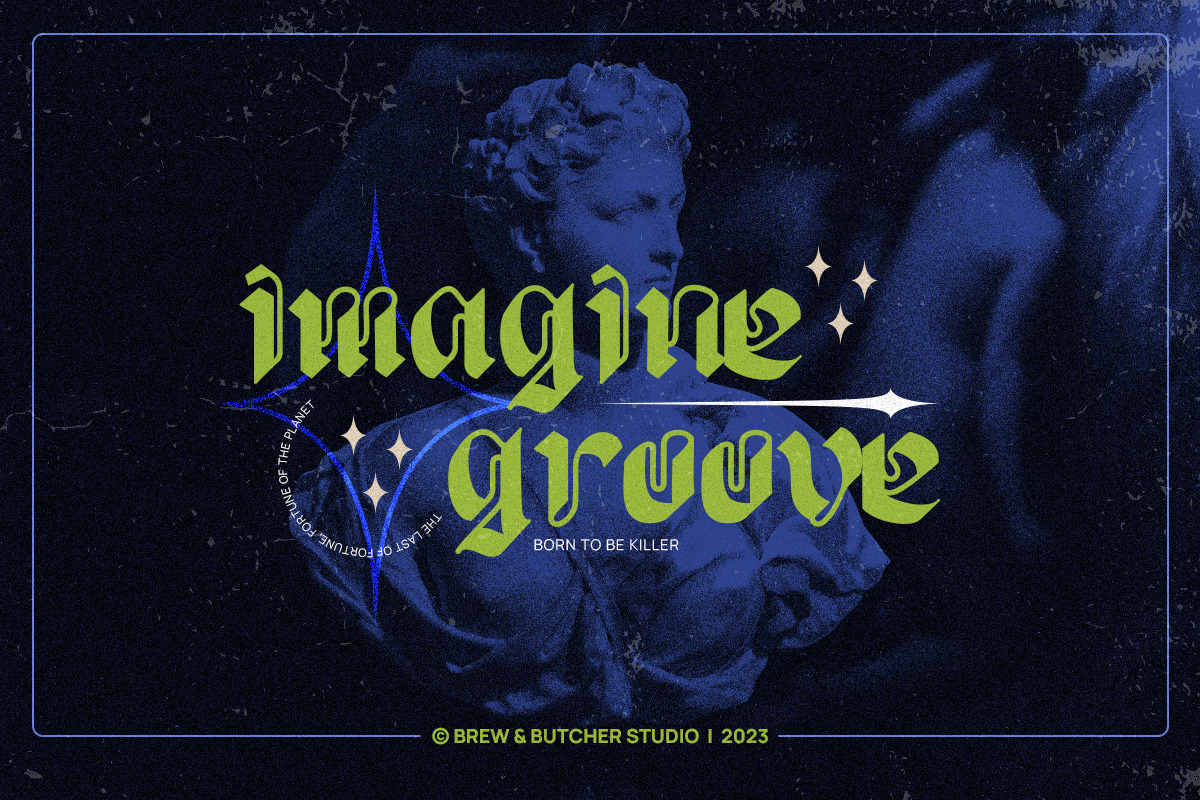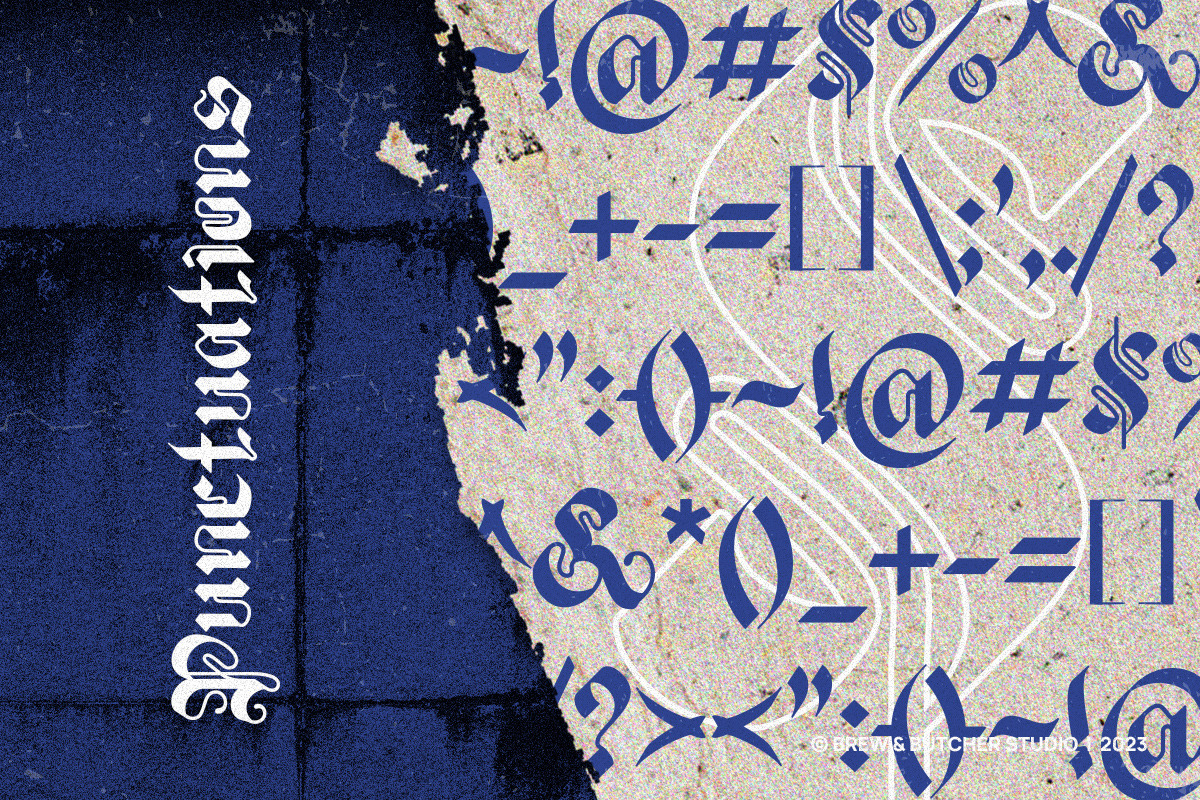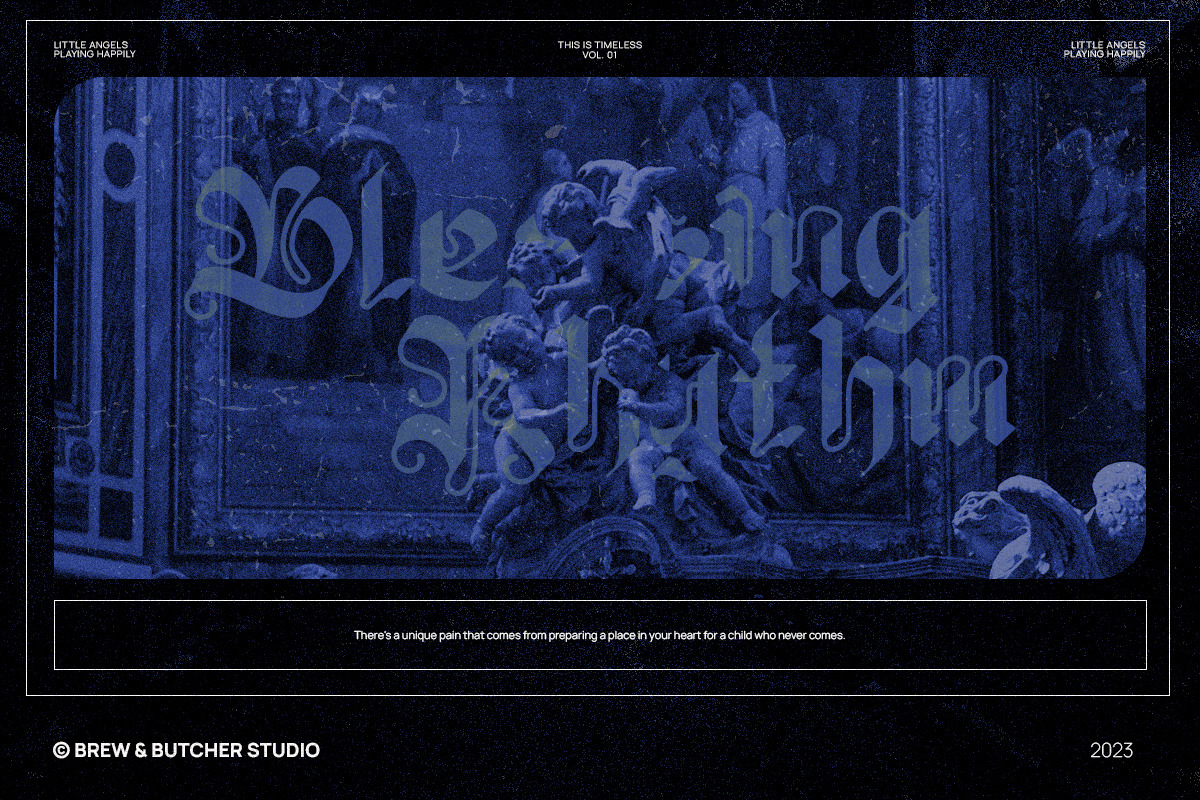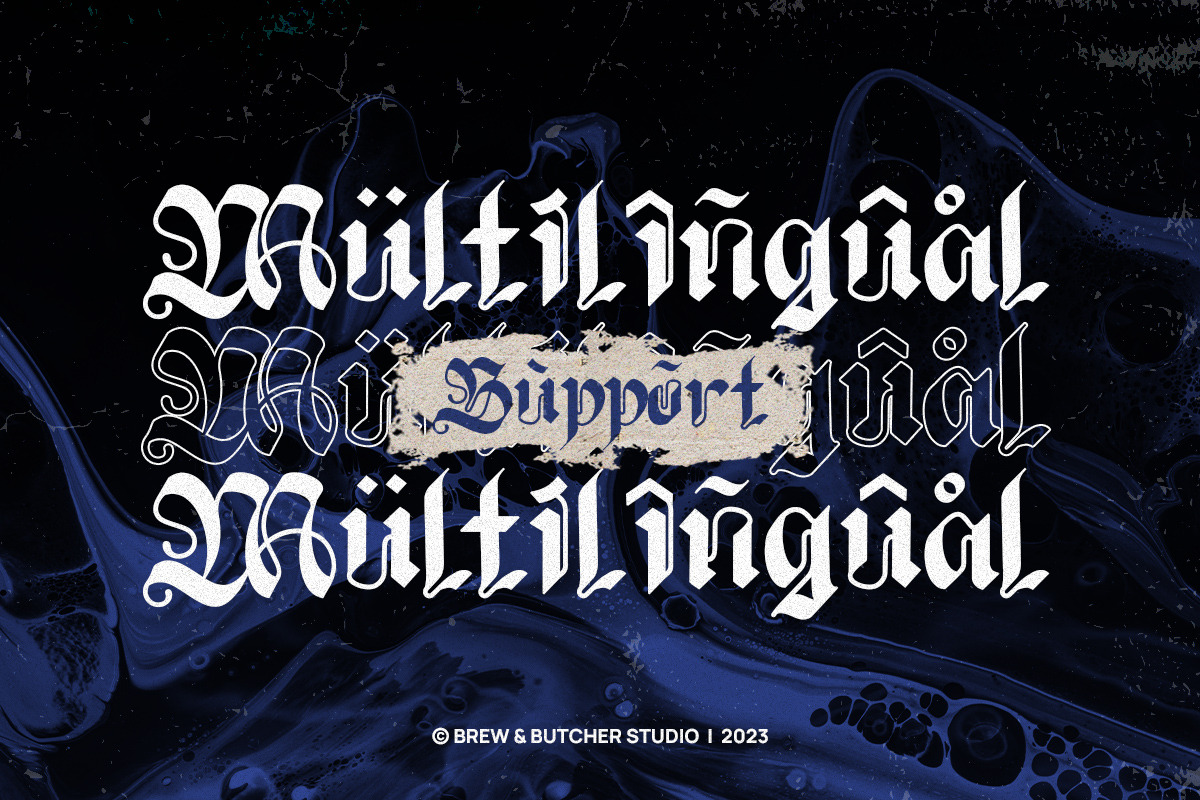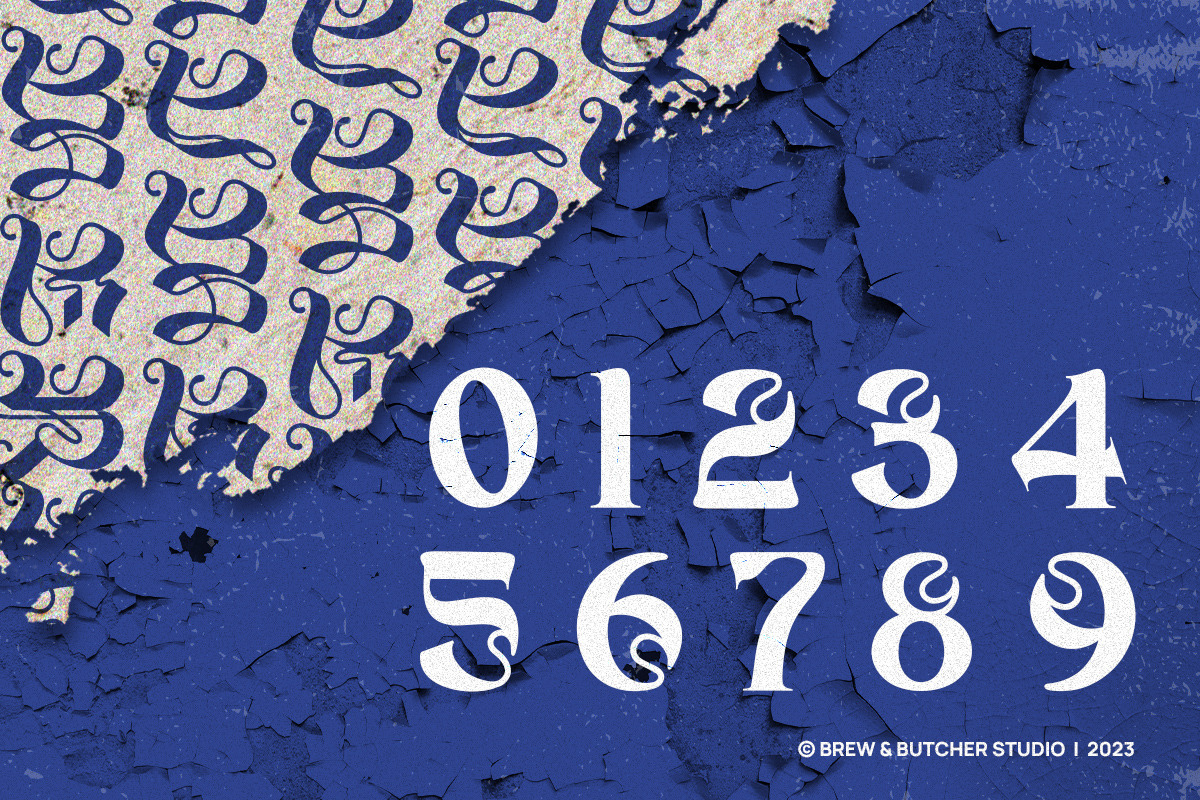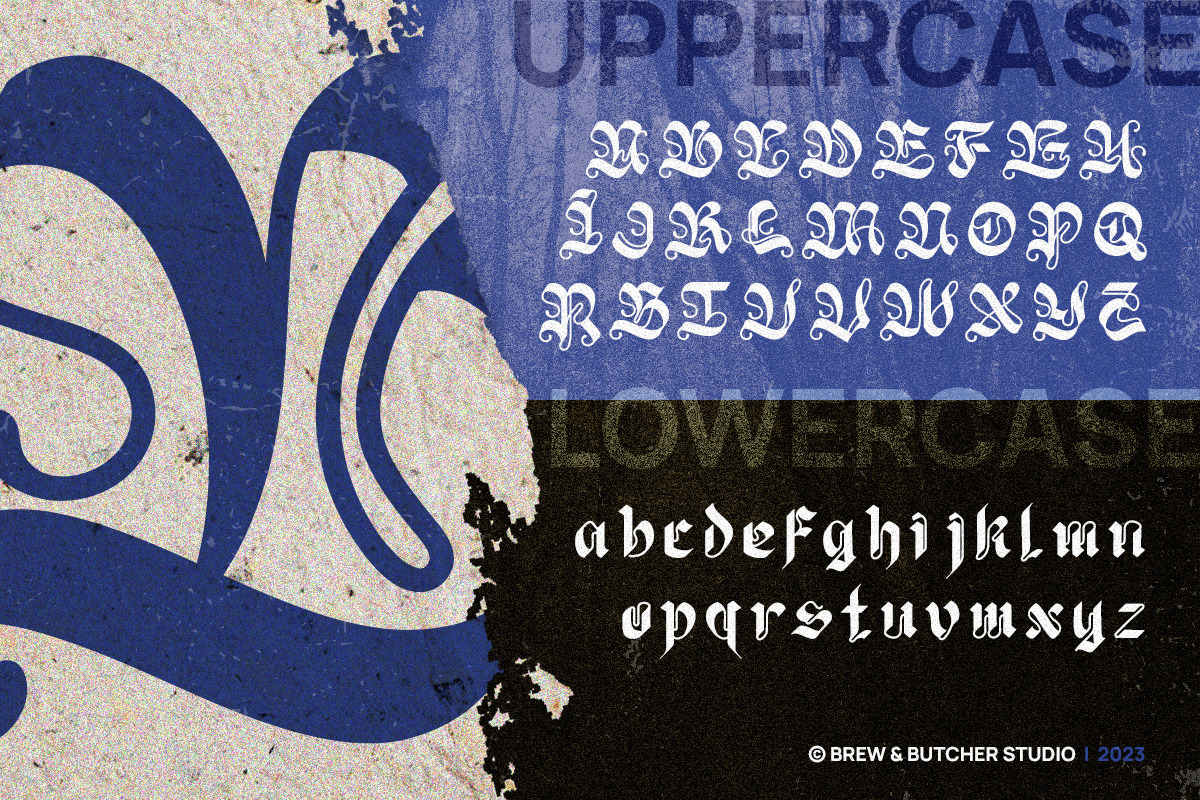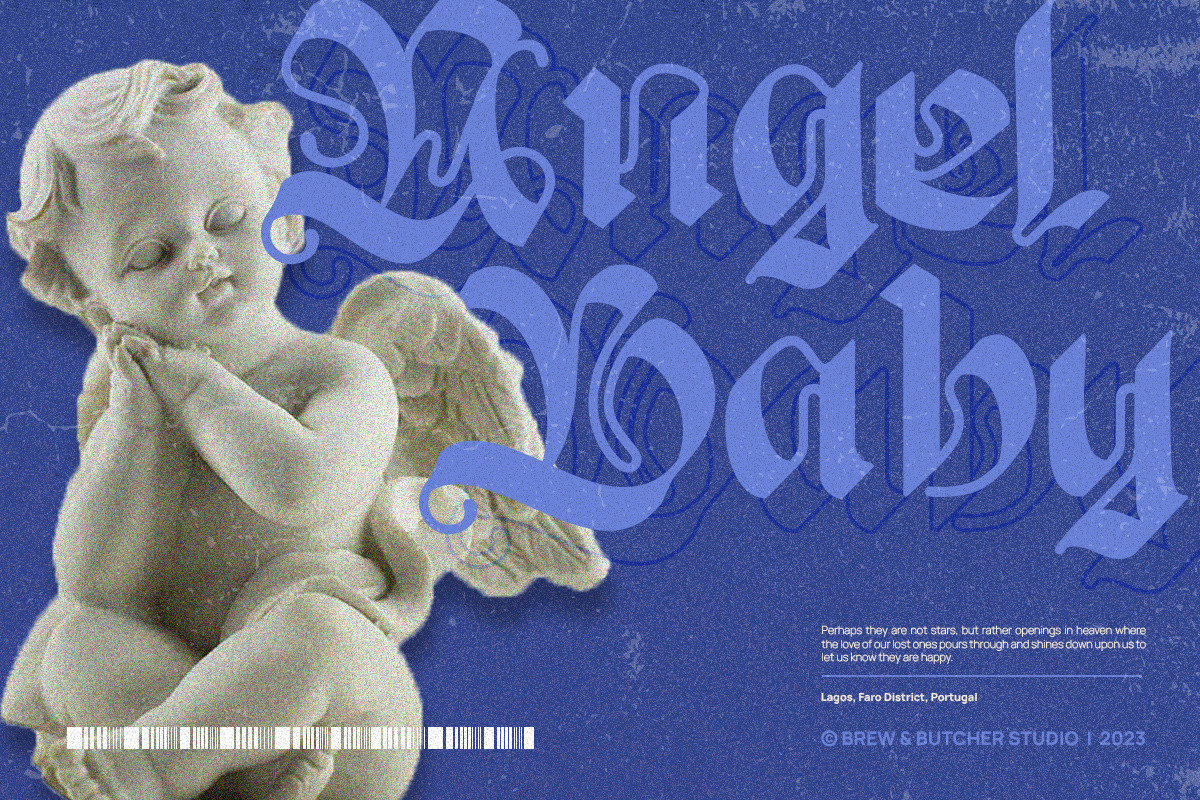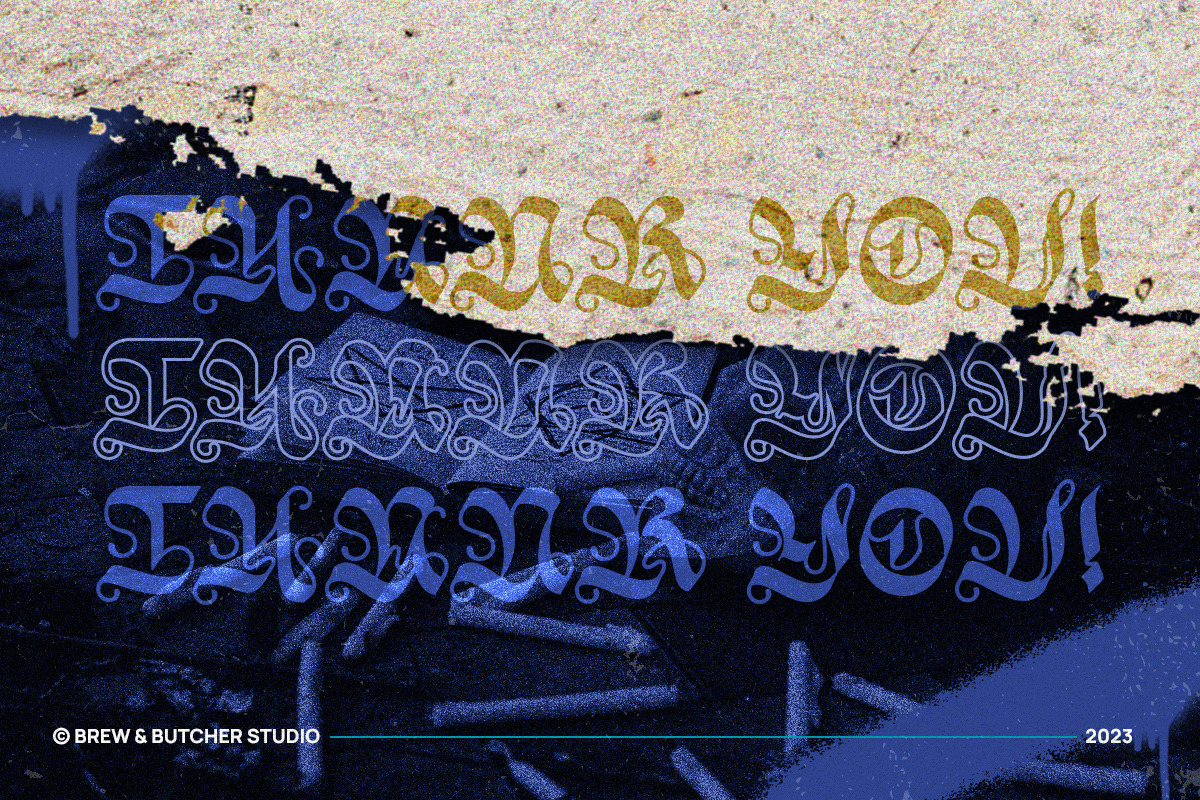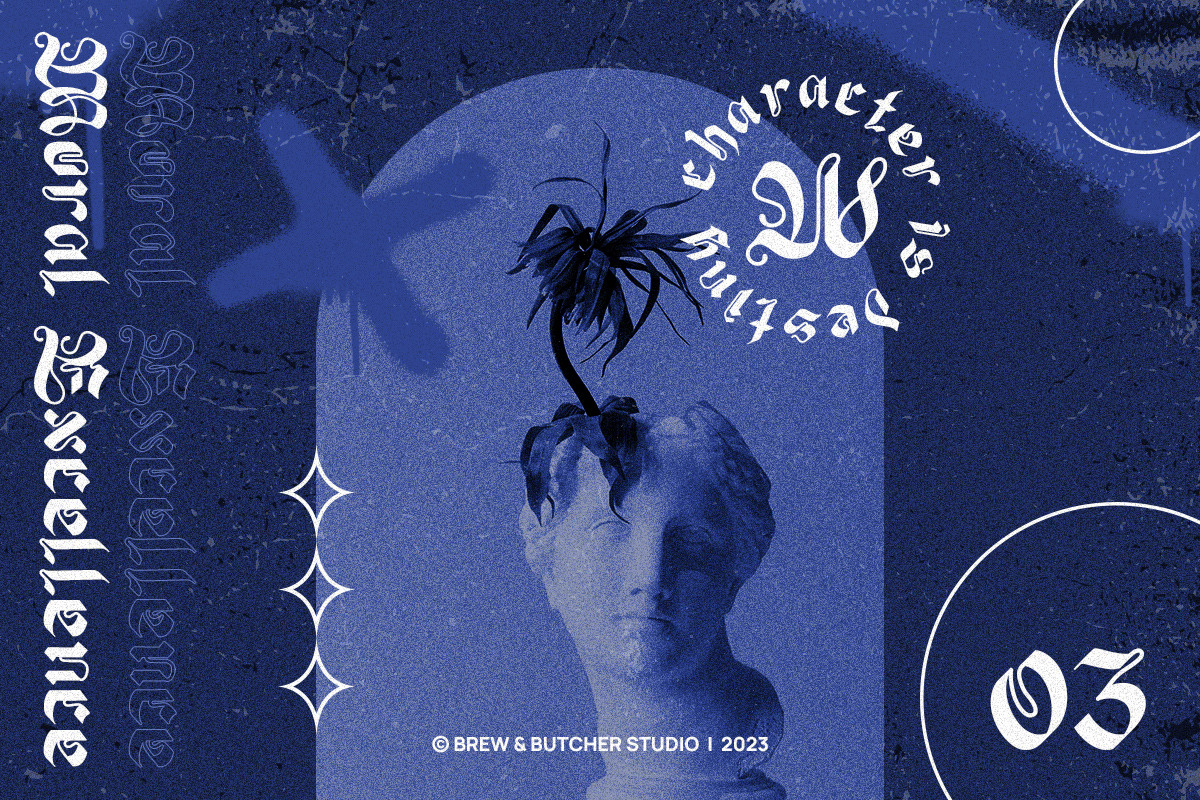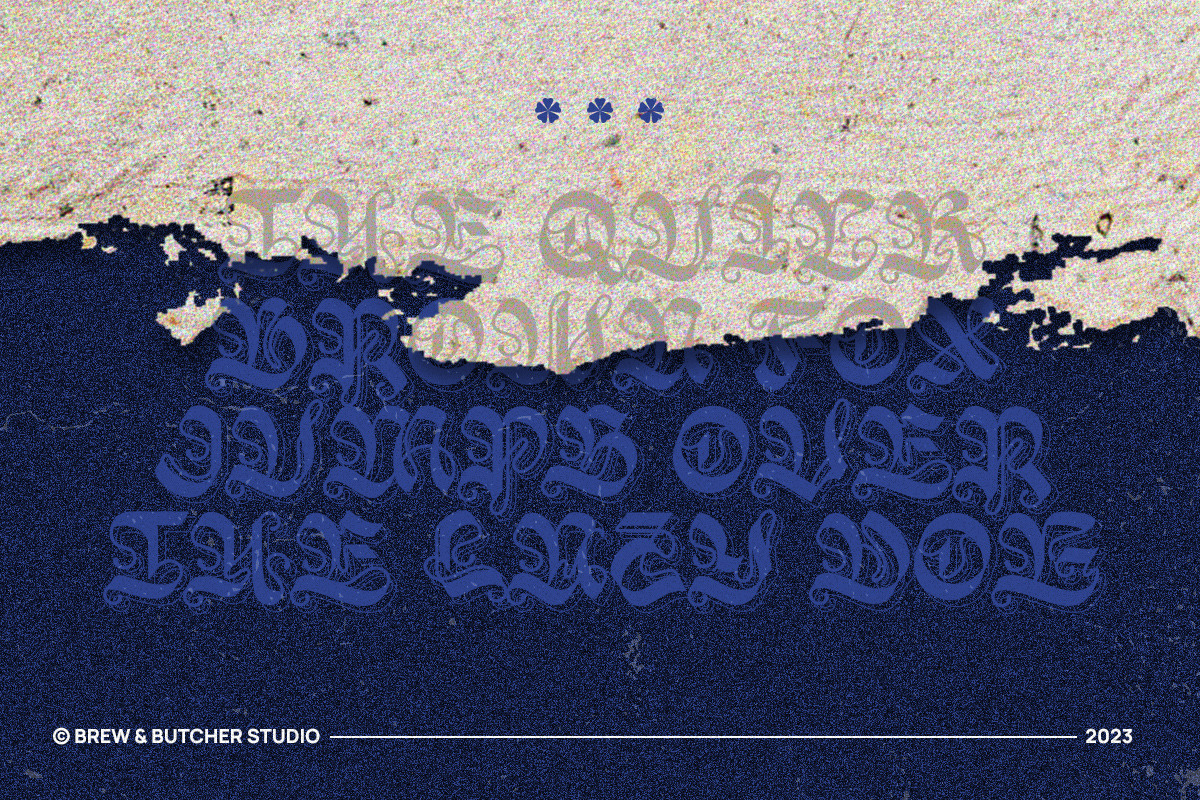
Hangod | Blackletter
Hangod is a black letter calligraphy style. Connected with curved lines that connect the bodies of the letters, giving the impression of unity. This font has a slightly spooky and gothic impression, but still gives a bold impression. With soft curves, it looks attractive and consistent. This font is best to use for header or headline, poster, flyer, banner, landingpage, portfolio, name write, album covers, and etc.
- Multilanguage